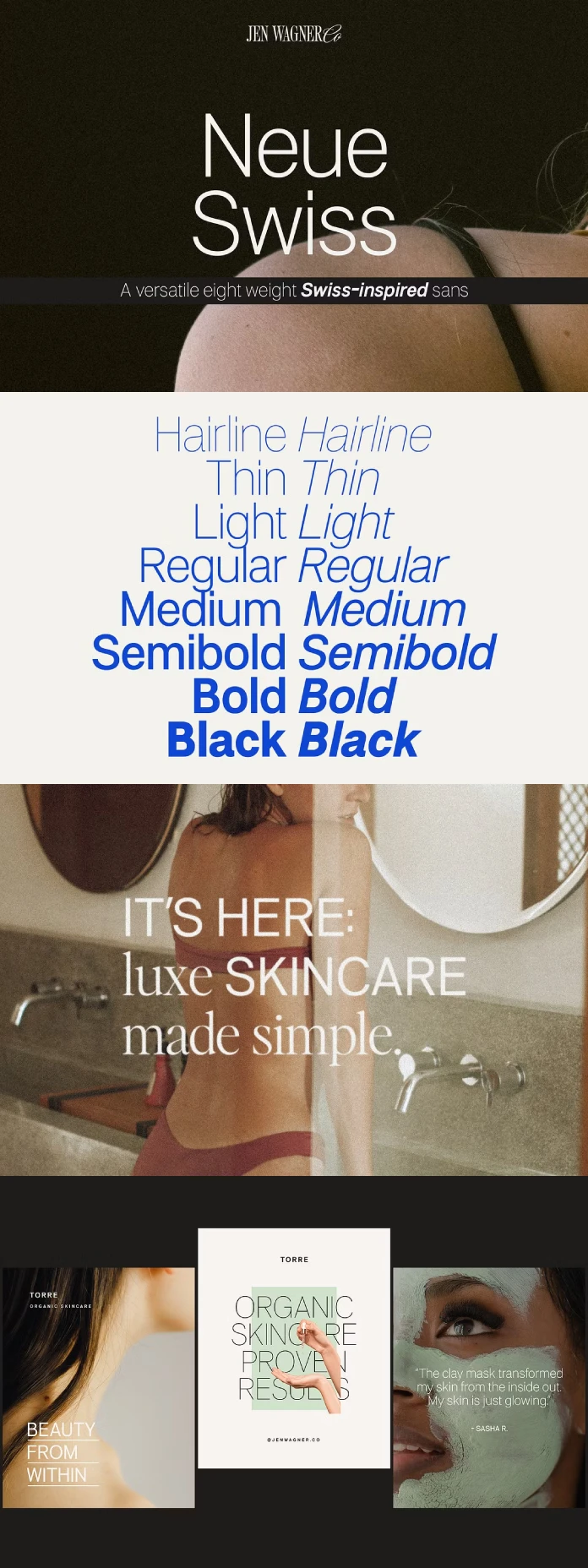
Sometimes, picking the right font can feel kinda overwhelming, right? It can feel like navigating a minefield. But what if there was a font family so versatile, so clean, and so modern that it could handle almost any design task you throw at it? Enter the Neue Swiss font family. Designed by the talented Jen Wagner, Neue Swiss is a font that’s been making waves in the design world, and for good reason. But what makes it so special? What can you do with it? And is it really worth the hype? Let’s explore this fascinating typeface together!
What is Neue Swiss?
Neue Swiss is a comprehensive typeface designed with simplicity and functionality in mind. Jen Wagner created this font family to be a workhorse, something designers could rely on for many projects. It’s a sans-serif typeface, meaning it lacks the small decorative strokes (serifs) that you find on fonts like Times New Roman.
So, what does that mean for you? Sans-serif fonts are often perceived as modern, clean, and approachable, making them ideal for digital applications, branding, and designs where clarity is key. But does that mean it’s boring? Absolutely not!
The Power of Simplicity: Neue Swiss’s Design Philosophy
The beauty of Neue Swiss lies in its simplicity. Jen Wagner stripped each character down to its most essential form. Do you know why? The goal was versatility. This minimalist approach allows the font to seamlessly integrate into various design contexts.
Think about it: a font that’s too ornate or quirky can easily clash with certain aesthetics. But a font like Neue Swiss, with its clean lines and understated elegance, can be adapted to fit almost any style, from corporate to creative, without feeling out of place.
A Font Family That Does It All
Neue Swiss boasts an impressive range of weights and styles. It comes in eight weights, from the delicate Hairline to the bold Black. And each weight has an italic counterpart, giving you a total of 16 different fonts to play with.
Why is this important? This range allows you to create visual hierarchy within your designs. You can use a lighter weight for body text and a bolder weight for headlines, all while maintaining a consistent and cohesive look. Plus, the italic versions add another layer of visual interest and emphasis when you need it.
- Neue Swiss Regular: (Uppercase & Lowercase, 8 weights, Hairline through Black)
- Neue Swiss Italic: (Uppercase & Lowercase, 8 weights, Hairline through Black)
Real-World Applications of Neue Swiss
Neue Swiss truly shines in a variety of design applications. Jen Wagner specifically designed it to be an easy go-to for branding, web design, and print design projects. So, what does that look like in practice?
- Branding: Its clean and modern aesthetic makes it perfect for creating logos, business cards, and other brand materials.
- Web Design: Its readability and legibility, especially at smaller sizes, make it ideal for website body text, navigation menus, and UI elements.
- Print Design: From brochures and flyers to magazines and books, Neue Swiss provides a professional and polished look for any print project.
The font is versatile enough to be used on its own or paired with other fonts to create unique and interesting combinations. For example, it can be paired with Nautica or Altesse Std.
Accessibility and Readability
Beyond aesthetics, Neue Swiss excels in accessibility and readability. The clear and simple letterforms are easy to read, even in smaller sizes. This is crucial for ensuring that your designs are accessible to a wide audience, including people with visual impairments.
Why is readability so important? A font that’s difficult to read can frustrate users and detract from your message. Neue Swiss eliminates this problem by prioritizing clarity and legibility above all else.
More Than Just a Pretty Face
Neue Swiss is not just a beautiful font, it is a functional tool that can help you create effective and engaging designs. Its versatility, readability, and accessibility make it a valuable asset to any designer’s toolkit. So, is it the only font you’ll ever need? Maybe not.
But, with its wide range of weights and styles, its clean and modern aesthetic, and its ability to adapt to various design contexts, Neue Swiss is definitely a contender for the title of “most versatile font.” It’s worth exploring if you need a reliable, adaptable, and visually appealing typeface. What do you think, will you give it a try?